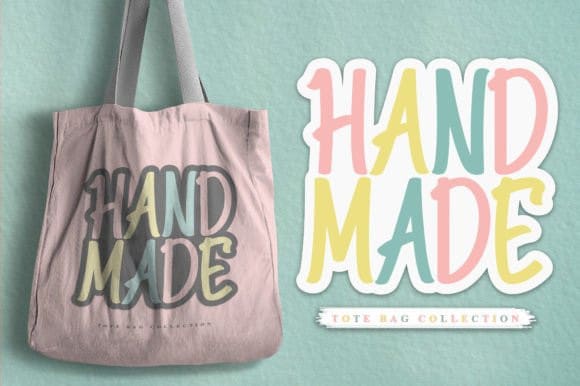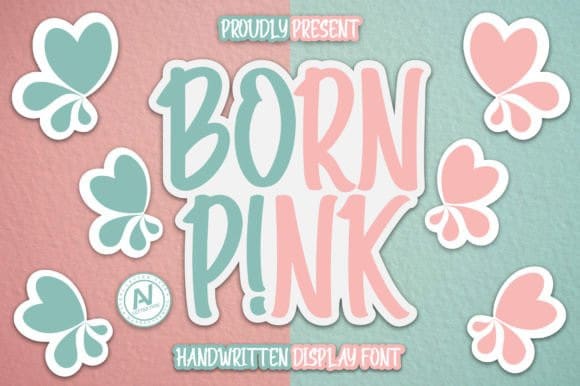
Born Pink Font
Born Pink Font is a handwritten display font that is stylish and that has very neat kerning. Expertly designed to make your creations look amazing. This font would look great in a variety of ideas, and use it to get creative in clothing branding, crafting, tote bag branding, social media, and so much more!